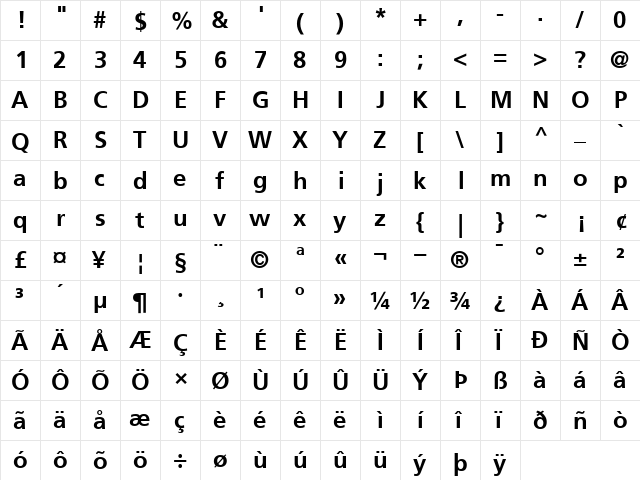
Frutiger65 Bold Font Preview
Frutiger65 Bold
Design Context for Frutiger65 Typeface
Frutiger65 offers clean, dependable letterforms without strong stylistic allegiance, making it a practical choice for designers who need flexibility. The heavy weight commands attention and anchors typographic hierarchies.
Pro Tip: Use Frutiger65 in both headline and body roles to test its range before committing to a single application.